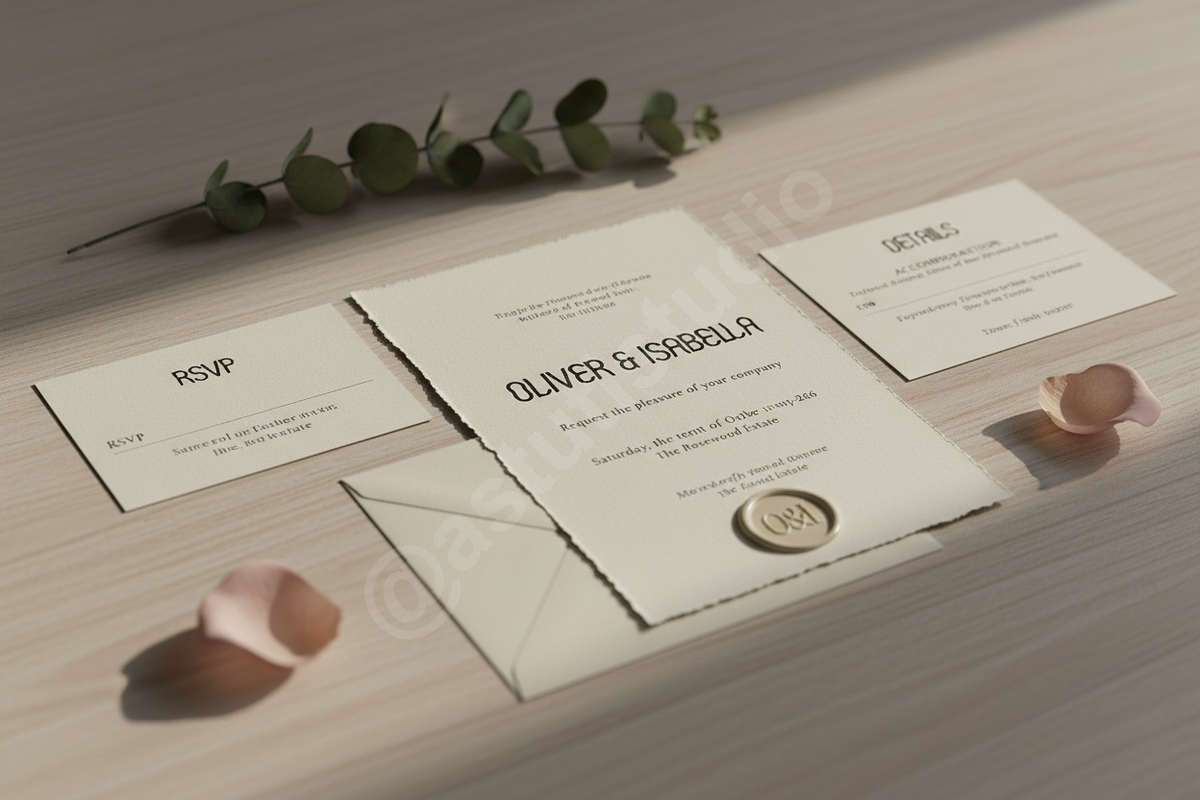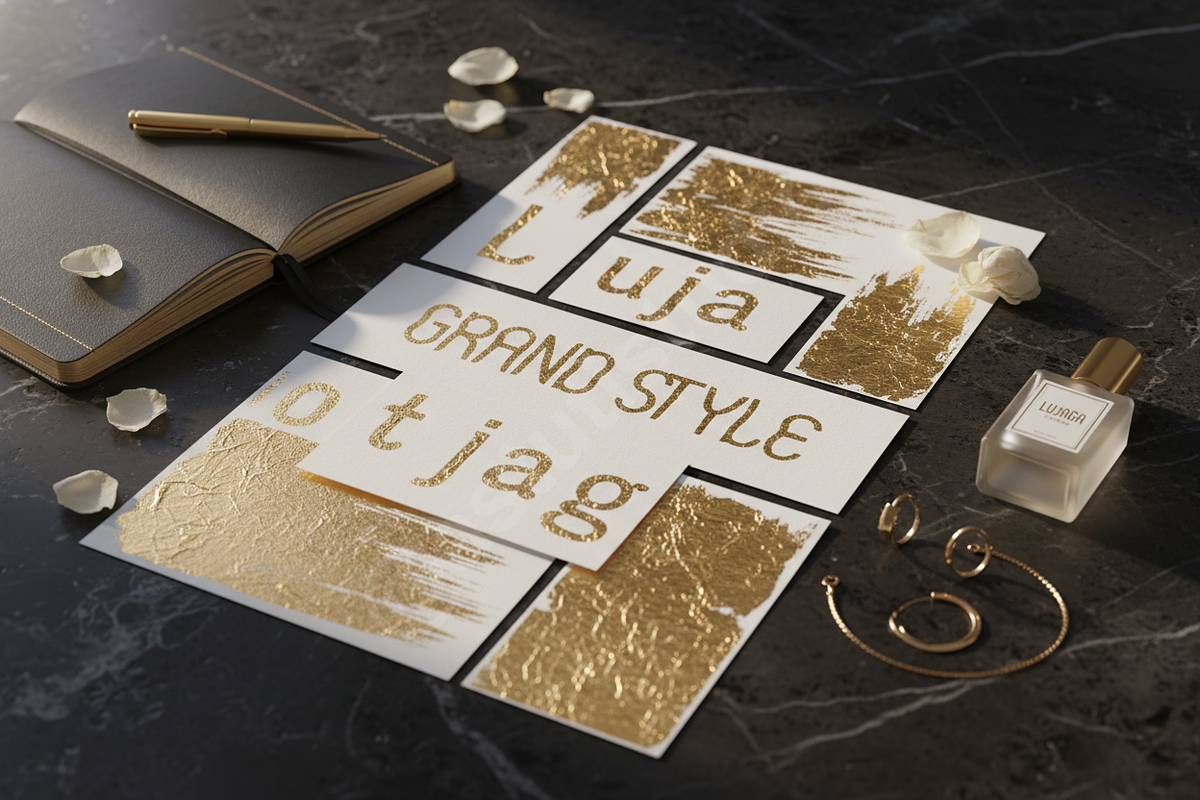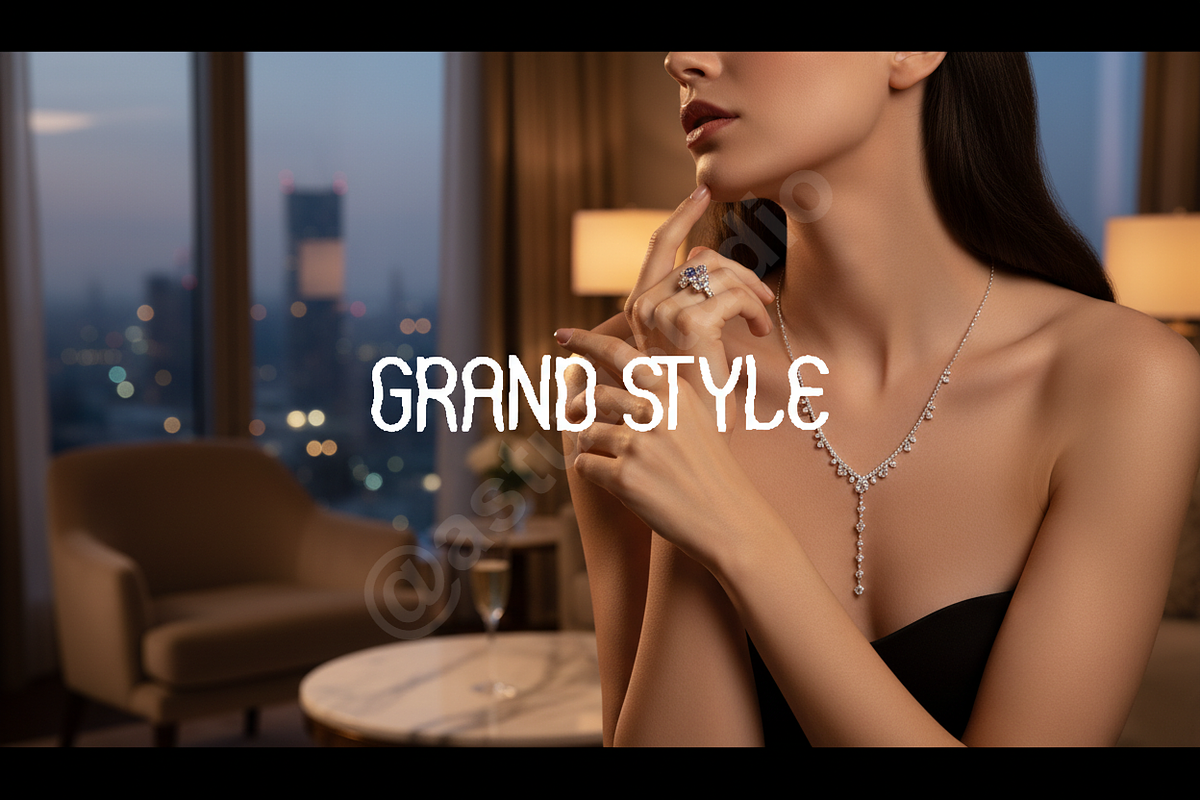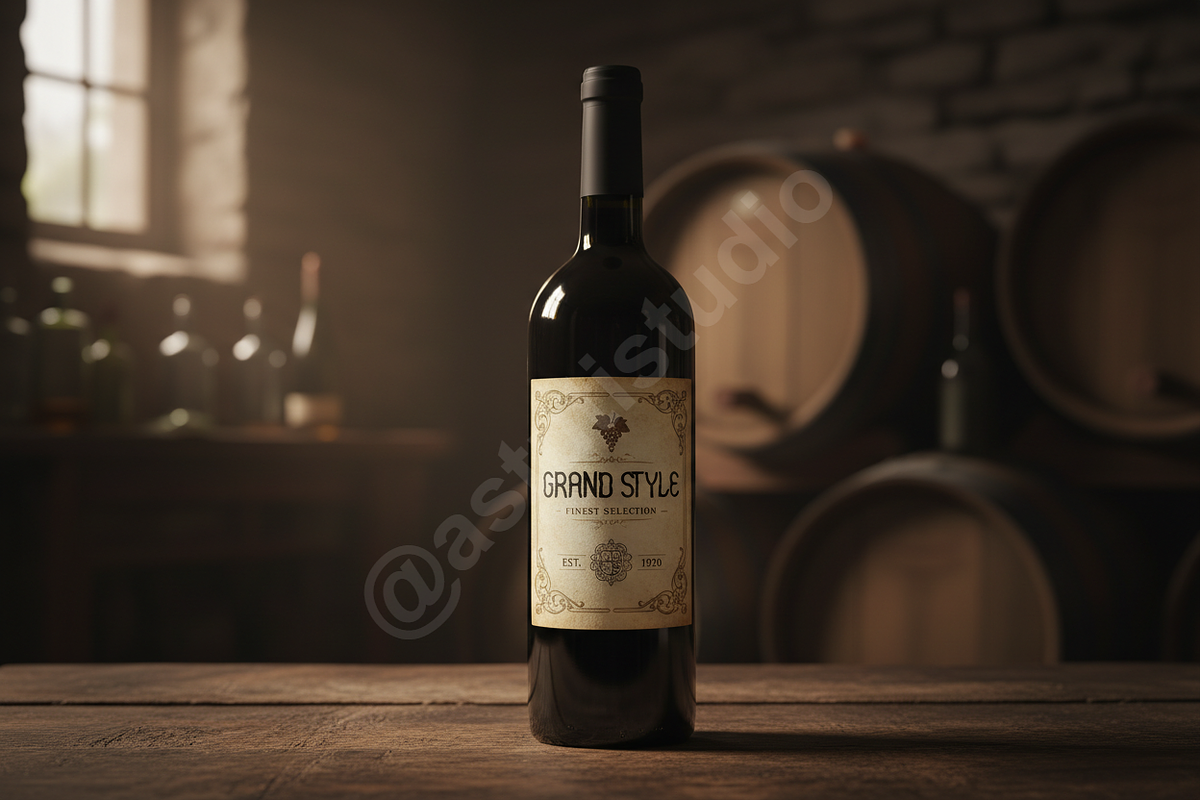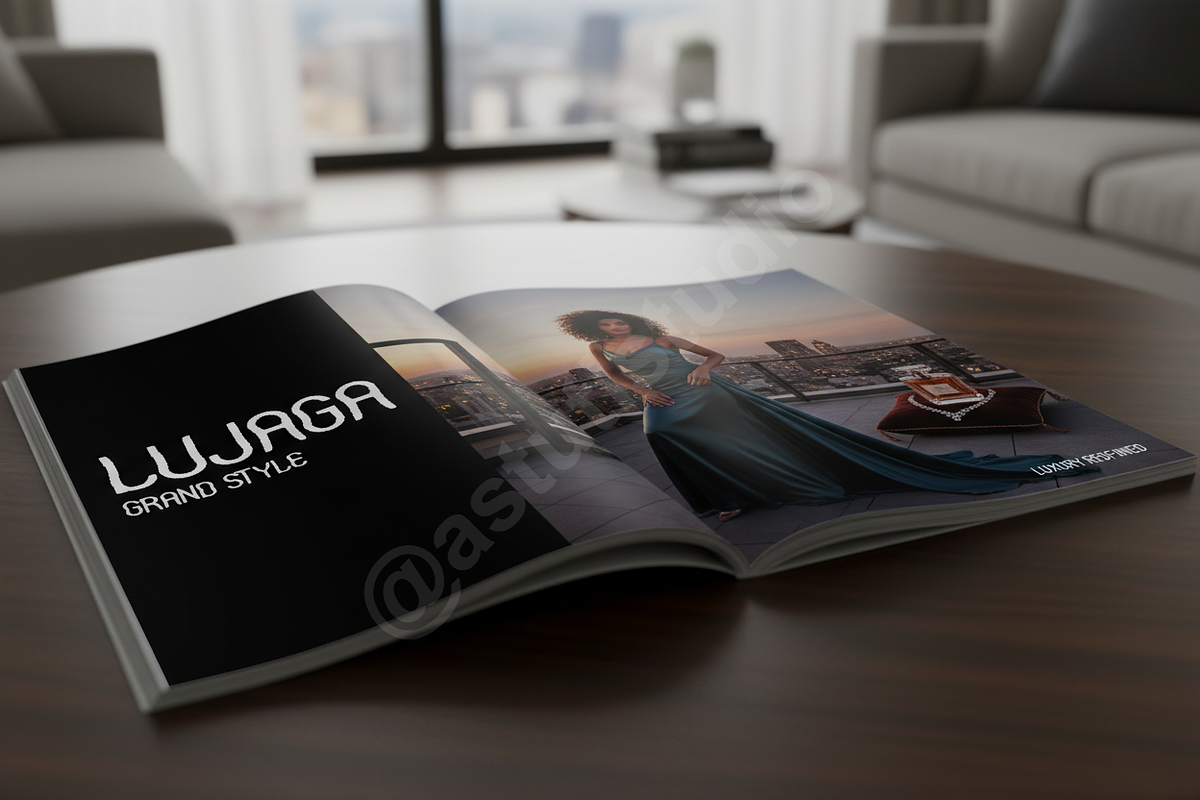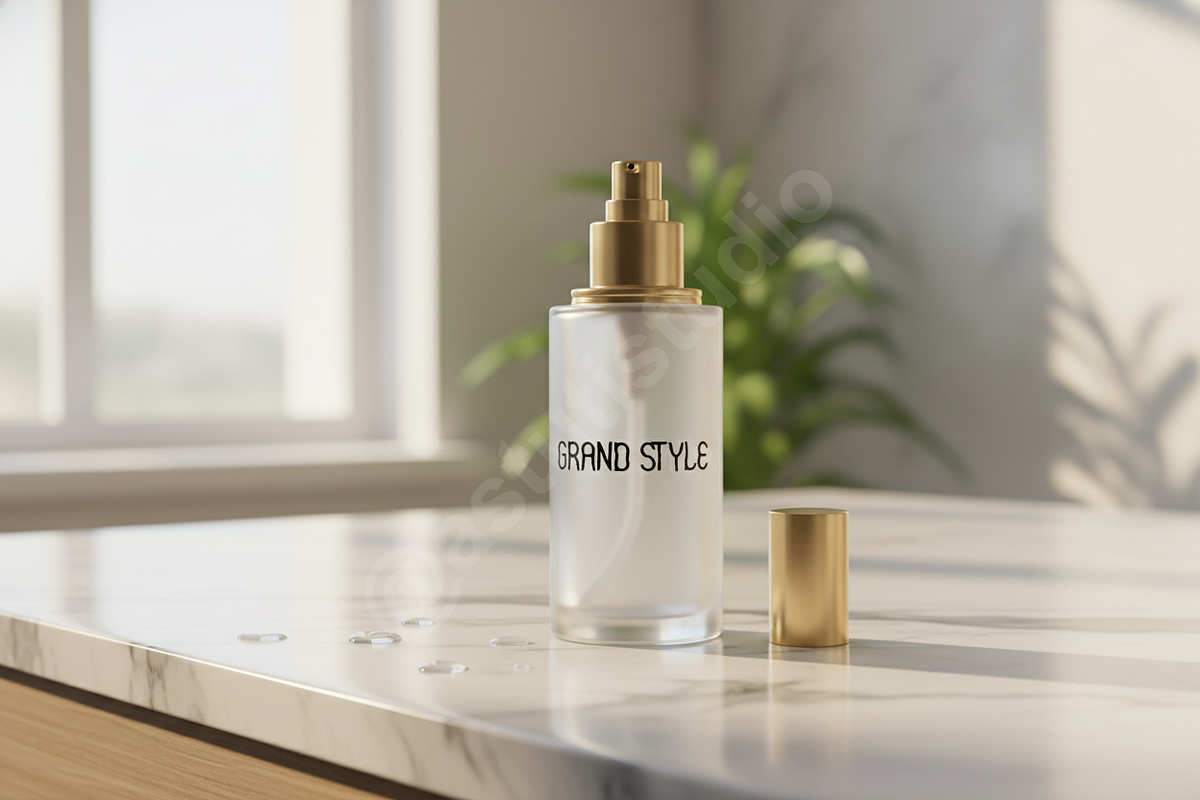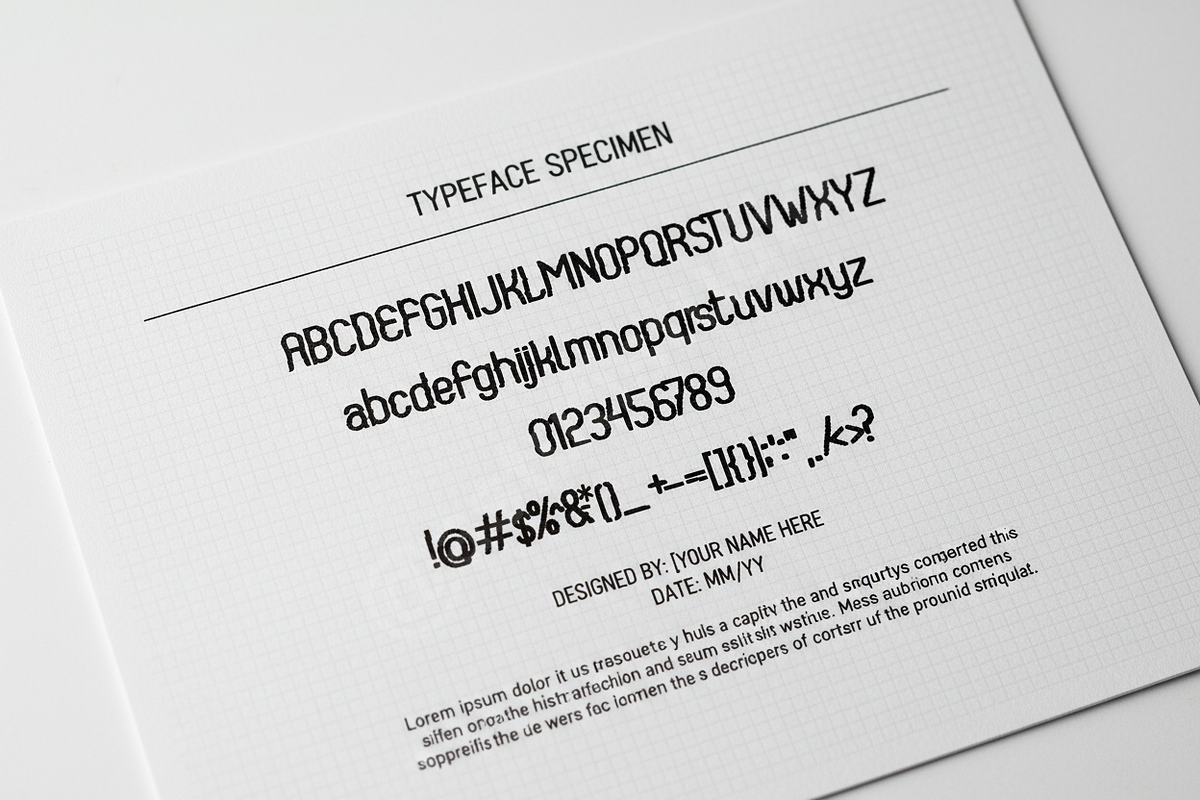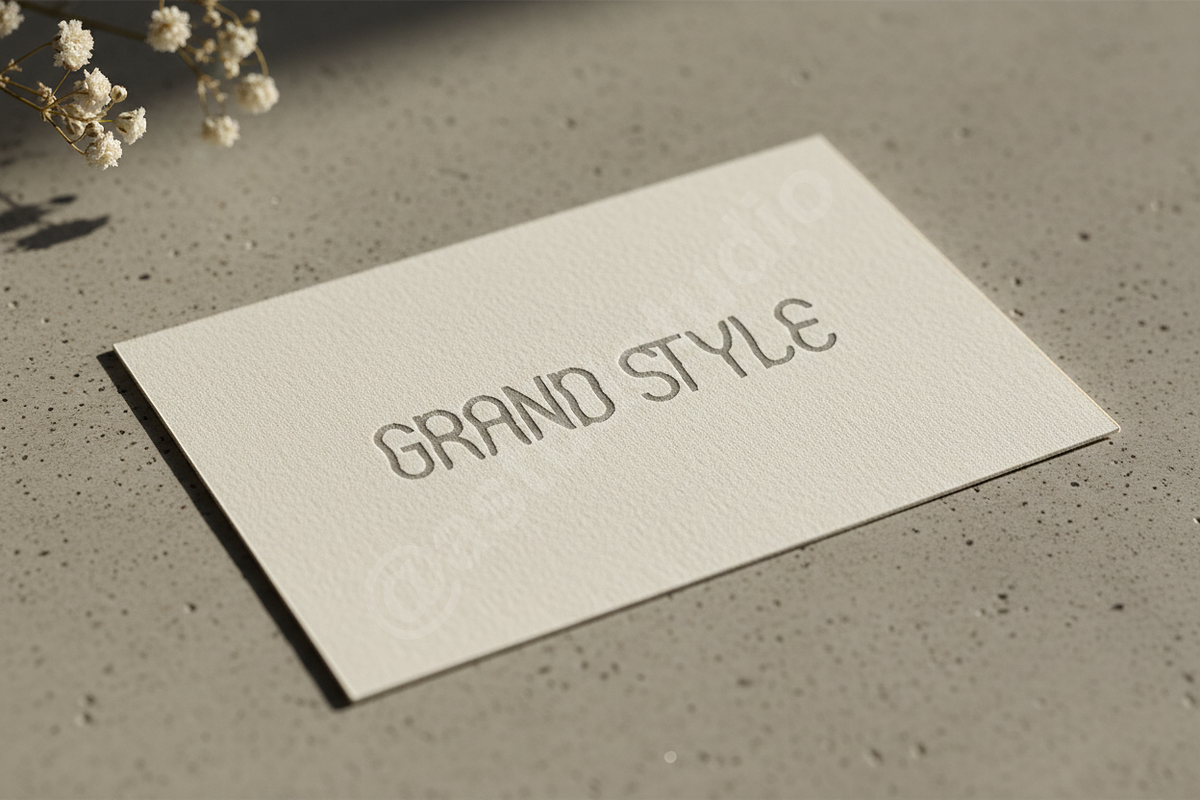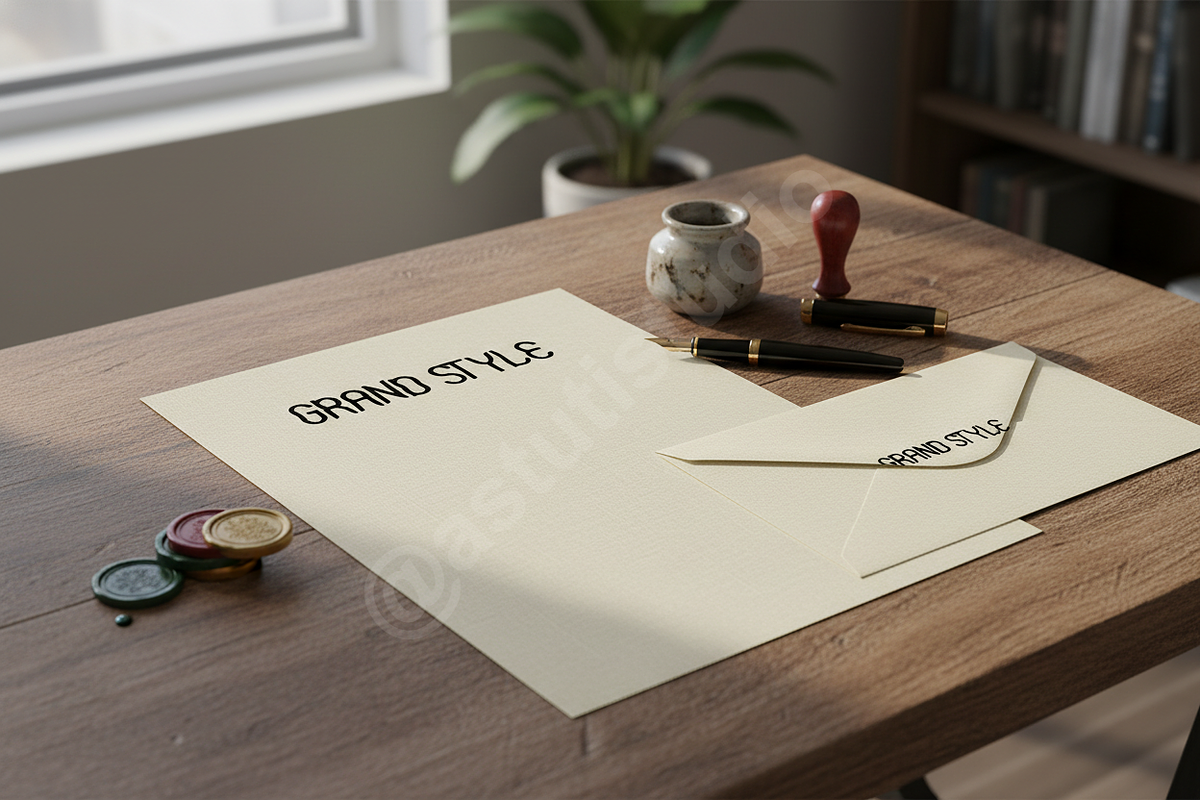
Lujaga - Sophisticated Modern Serif
Elevate your visual identity with Lujaga, a premium serif typeface designed for high-end aesthetics. Lujaga blends timeless classicism with a sharp, contemporary edge, making it the definitive choice for designers who demand elegance and precision. Whether you are crafting a luxury brand identity, an editorial layout, or high-impact social media content, Lujaga provides a sophisticated foundation that speaks of quality and craftsmanship.
- Refined, high-contrast letterforms for a premium feel
- Unique discretionary ligatures for custom-look typography
- Full multilingual character support for global reach
- Optimized kerning and spacing for effortless readability
- Versatile weights suited for both large display titles and body text
- Complete set of uppercase and lowercase letters
- Numbers, punctuation, and comprehensive symbol support
- Direct access to OpenType features